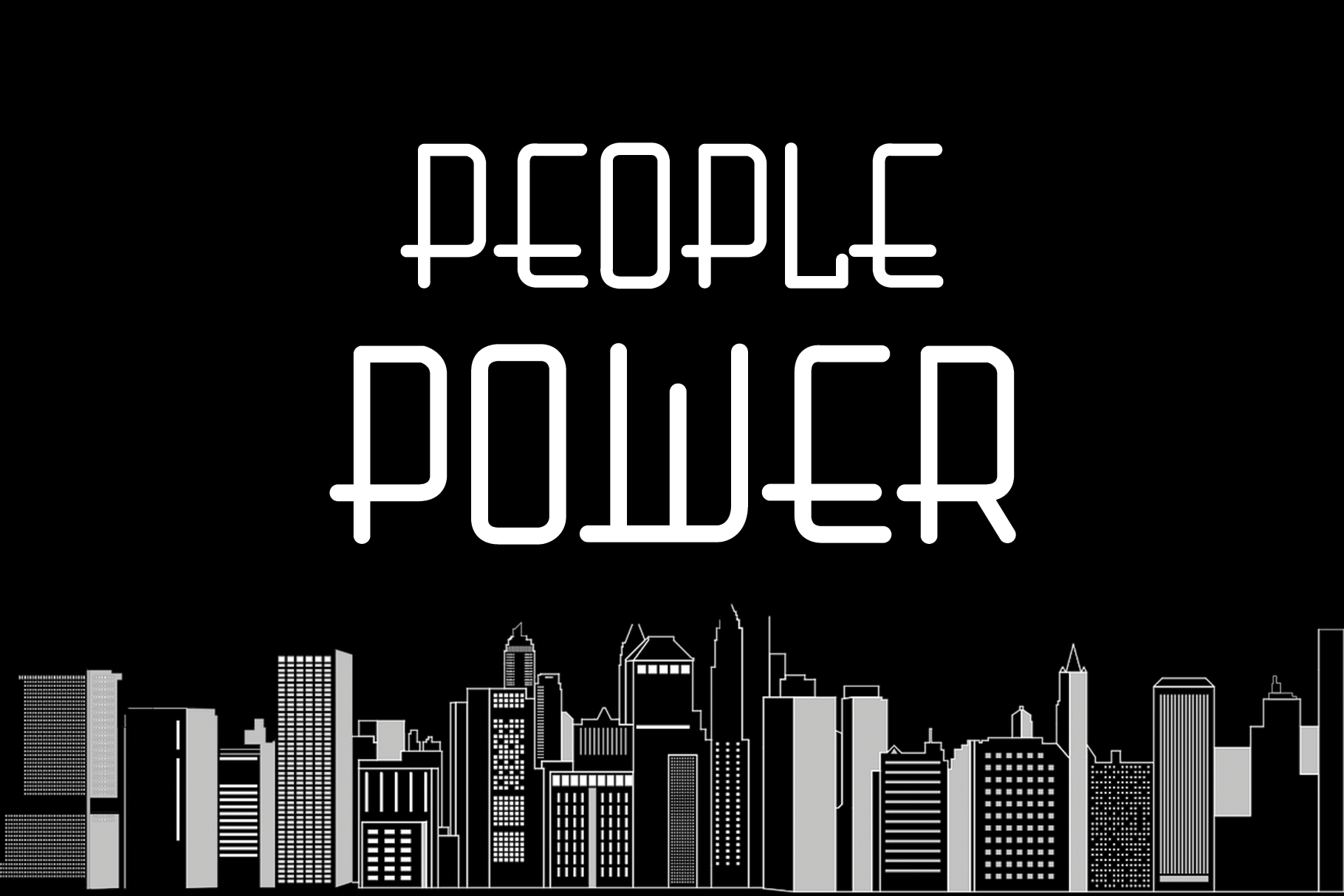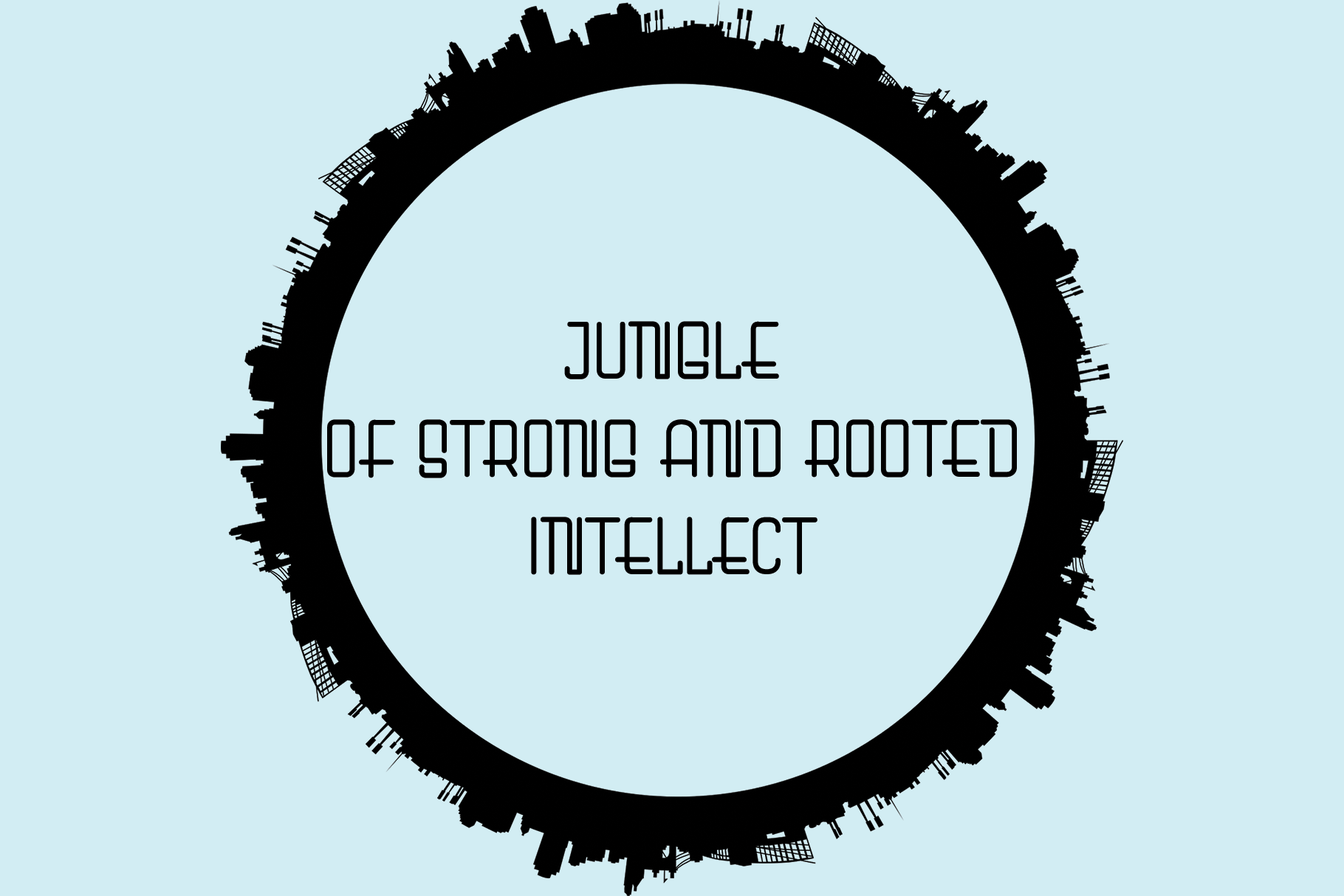
City Hunter Font
City Hunter Display Font
This is a modern and minimalistic display font. This font is ideal for writing web designs, business cards, or pretty much anything else that requires a unique touch.